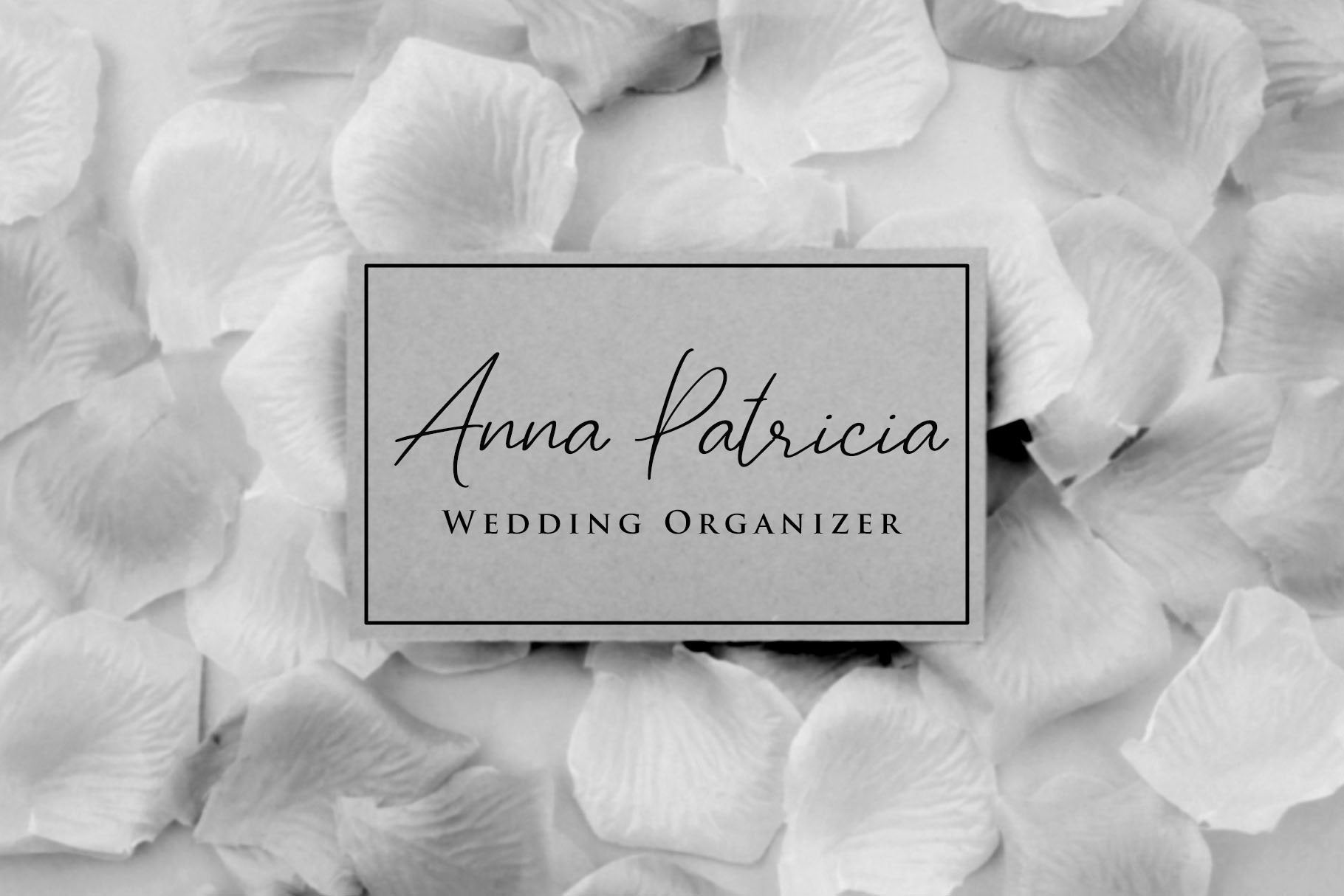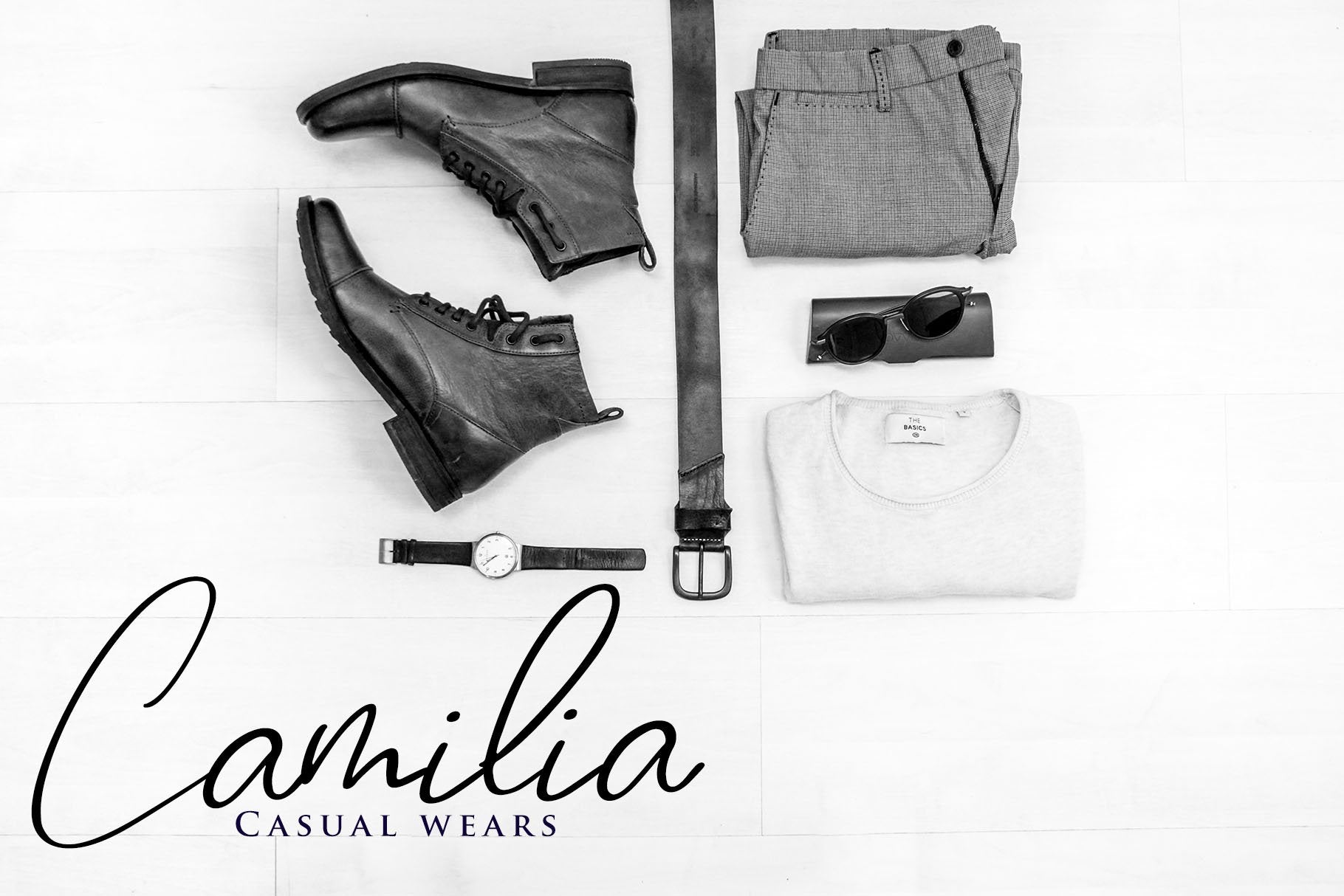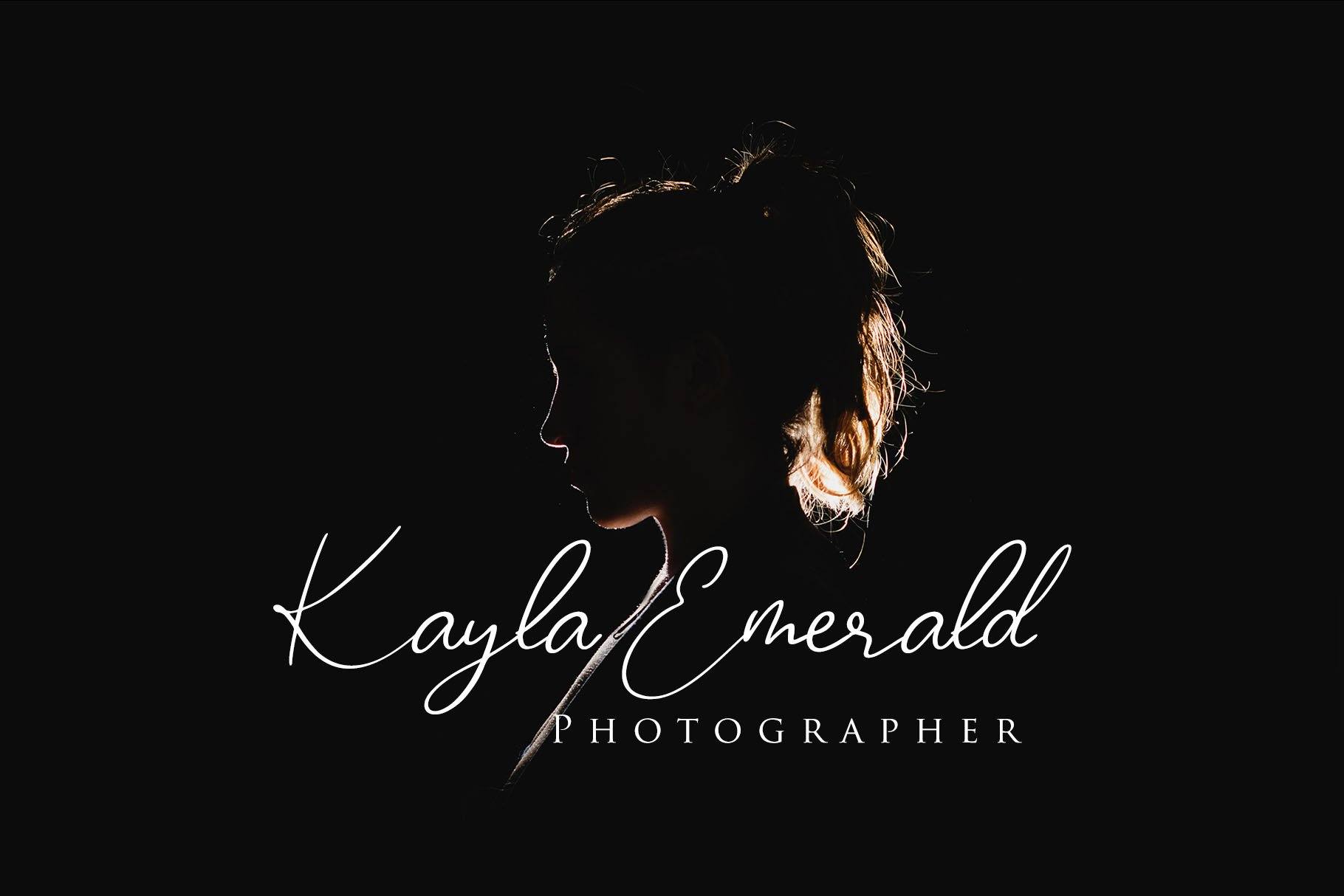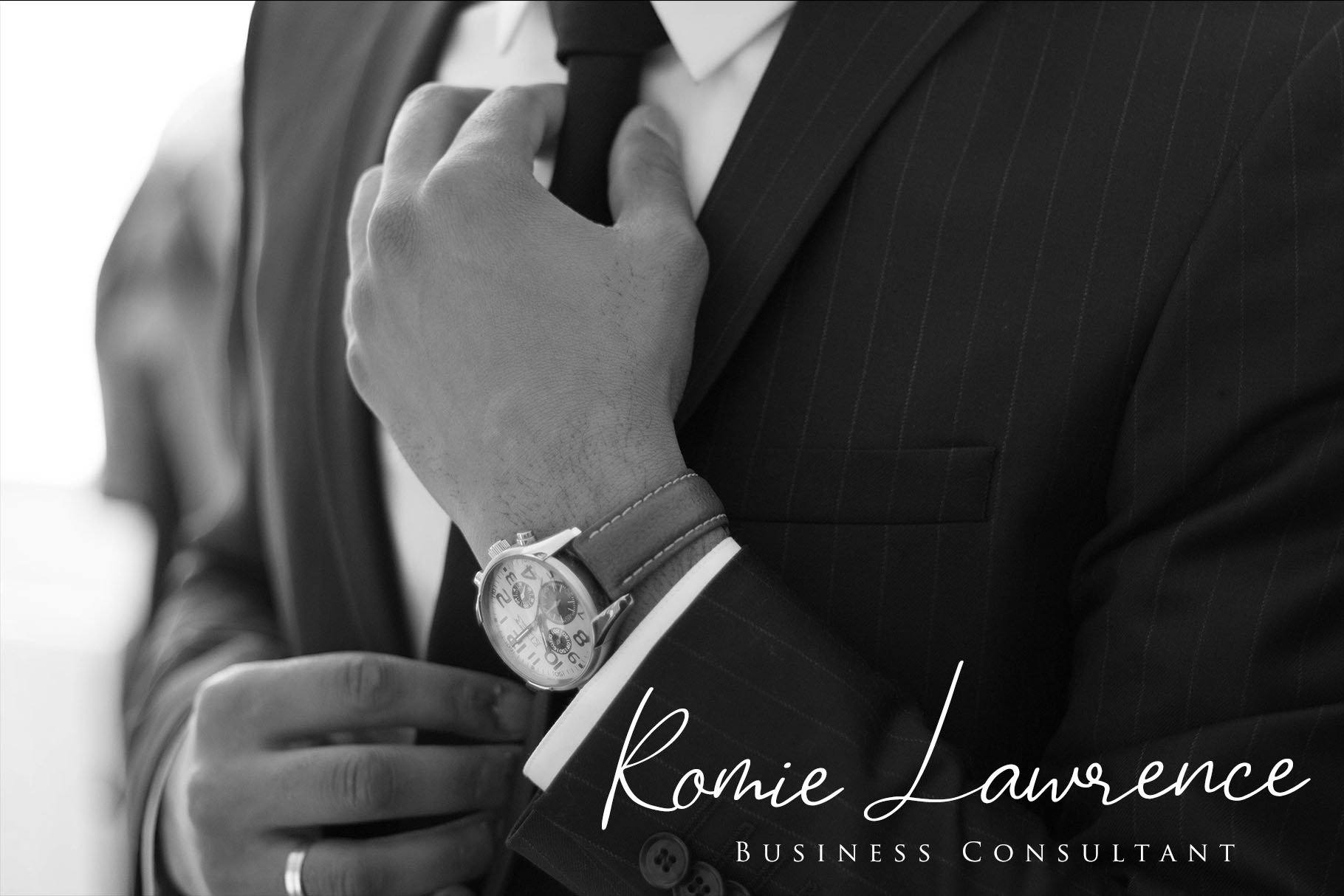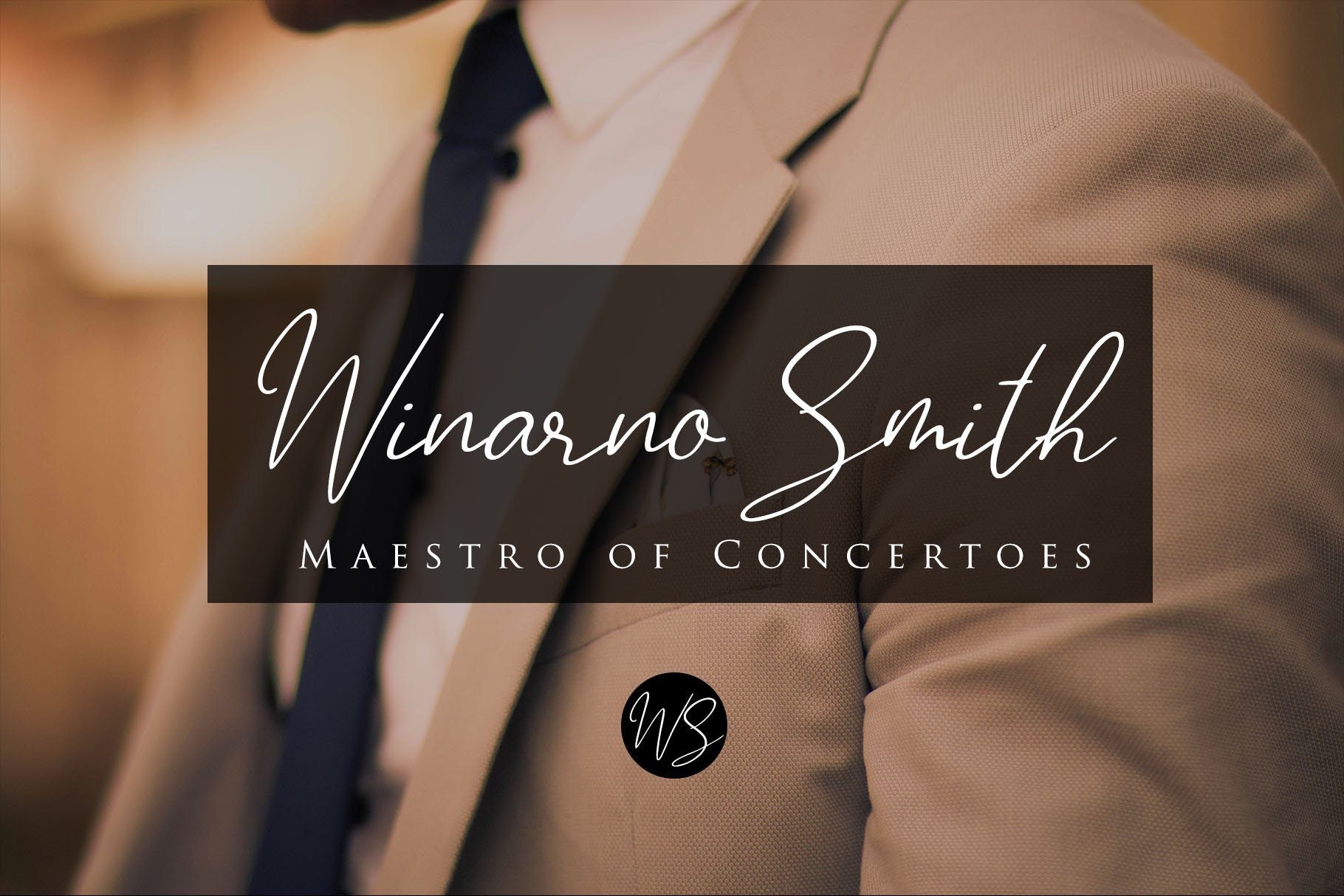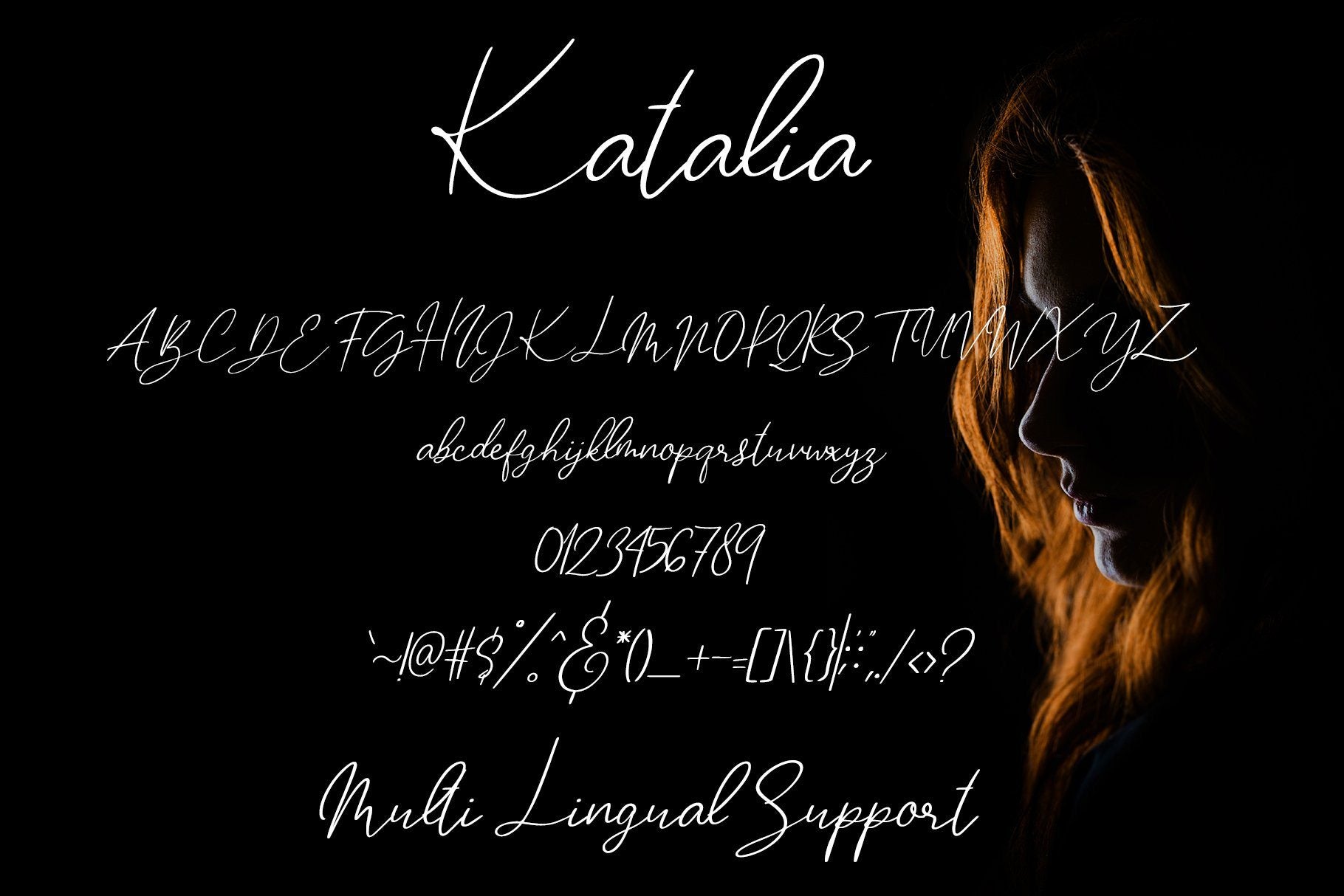
Katalia Handwritten Font
Introducing, Katalia Handwritten Font. It’s elegant, versatile and classy handwritten font, great choice for your exclusive design, template, branding, signature, logo, apparels labels, name card, invitations, advertisements, magazine, etc. Katalia Highlights : Including Uppercase, lowercase, numeral and symbols Support Multilingual Katalia Files : Katalia OTF, TTF, WOFF Thanks for every support , please kindly leave us a message if you have any questions or issues about our product. Hope you enjoy with this font, happy designing and stay creative!